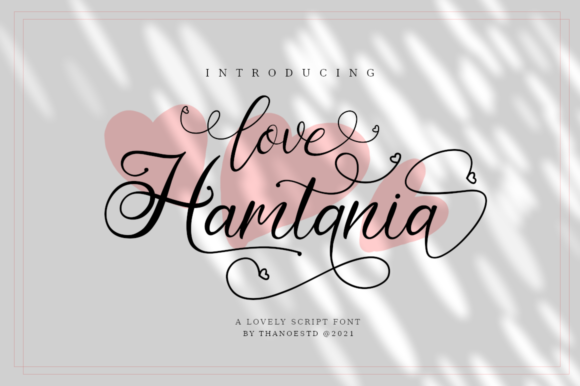
Welcome to the realm of typography, where emotions take shape and words come alive. Allow us to introduce you to Love Hamtania Font, a masterpiece crafted by the visionary thanoestd. This exquisite script font carries the essence of romance and sweetness, capturing the essence of affectionate sentiments.
Picture this: you're writing a Valentine's Day letter, pouring your heart out onto paper. The words are beautiful, but they lack that extra touch of charm. That's where Love Hamtania Font comes in. Its heart-themed characters will transform your letter into a work of art, adding a dash of enchantment to every stroke.
Imagine the delight on your loved one's face as they receive your letter, their eyes dancing across the page, captivated by the playful hearts adorning each letter. Love Hamtania Font is more than just a font; it's an expression of affection, a tangible representation of the love you share.
But Love Hamtania Font's allure extends beyond Valentine's Day. Its versatility knows no bounds. Envision wedding invitations, greeting cards, branding designs, and social media posts adorned with this captivating font. Let Love Hamtania Font elevate your creations, adding a touch of whimsy and elegance to every project.
With Love Hamtania Font, you possess the power to turn ordinary words into enchanting expressions. Its delicate strokes will add a touch of magic to your designs, leaving a lasting impression on your audience.
Don't settle for ordinary fonts. Embrace the magic of Love Hamtania Font and let your creativity flourish. Its heart-shaped characters will ignite your imagination and captivate your audience, leaving them utterly smitten with your designs.
Join the ranks of those who've discovered the transformative power of Love Hamtania Font. Let your designs bloom with romance, sweetness, and undeniable charm. Embrace the beauty of typography and let Love Hamtania Font be your guide.